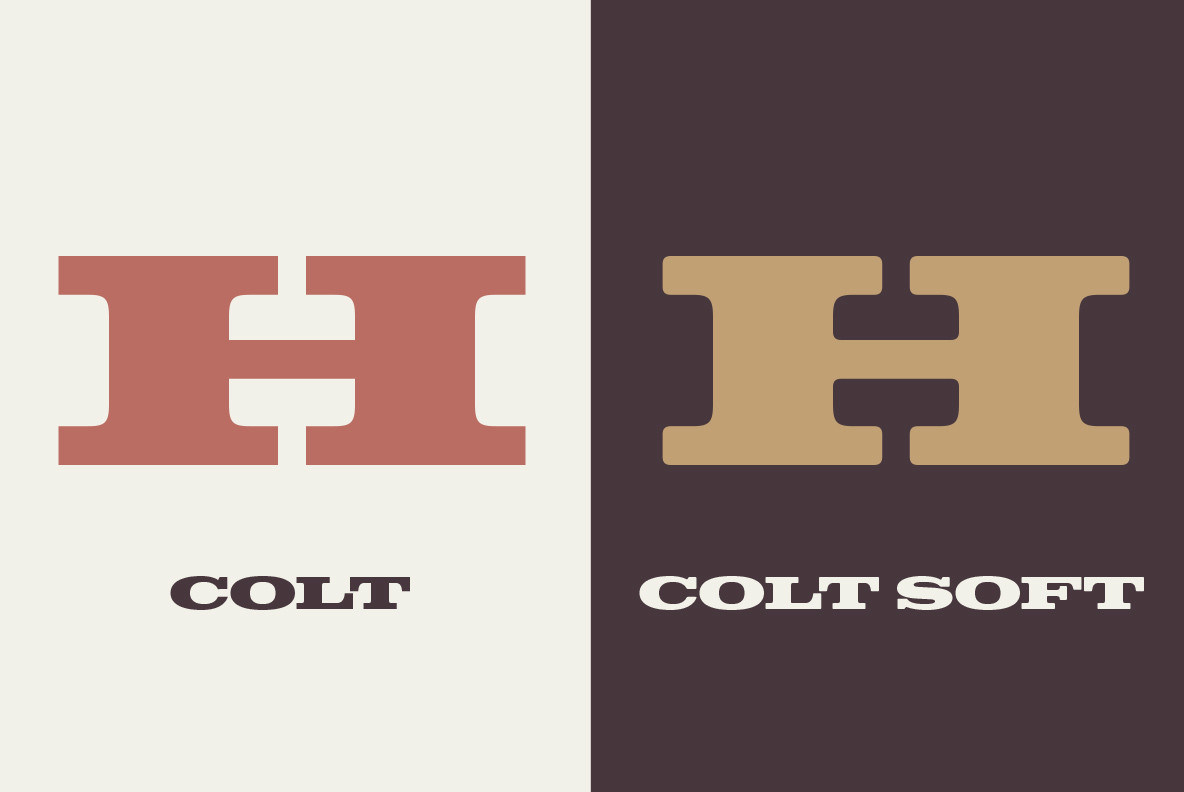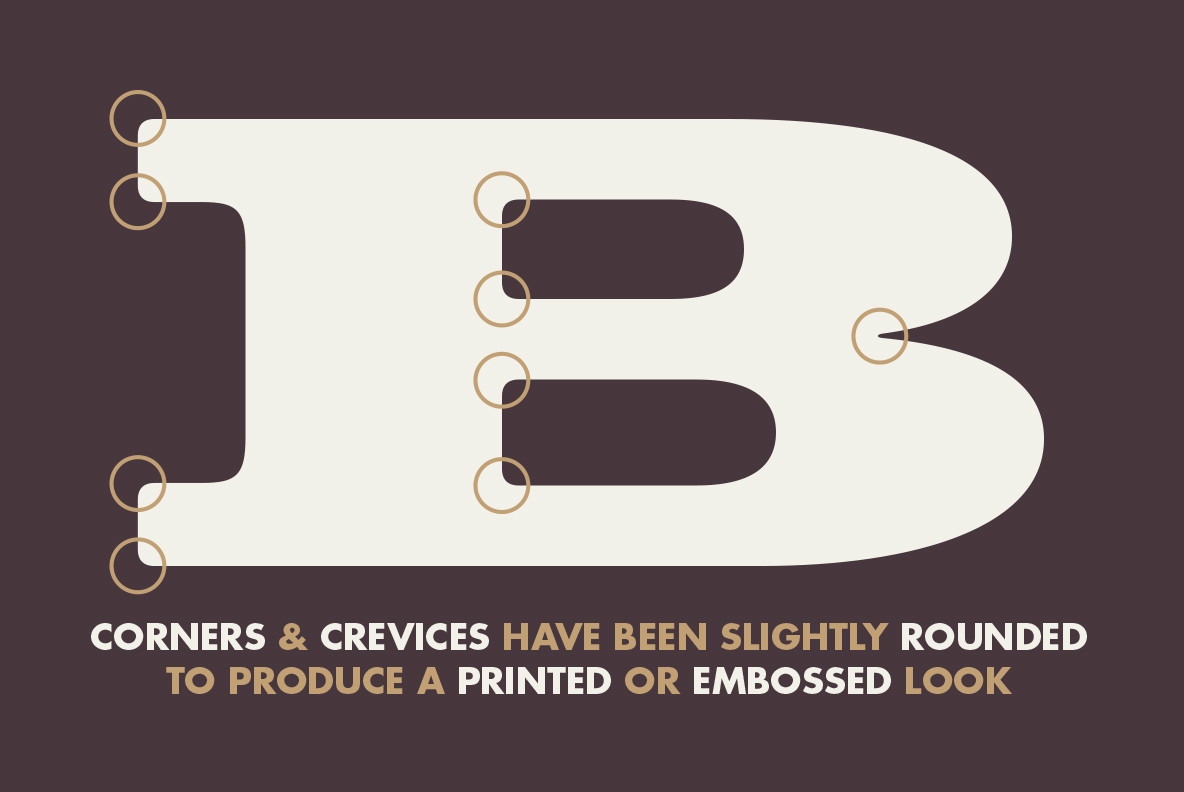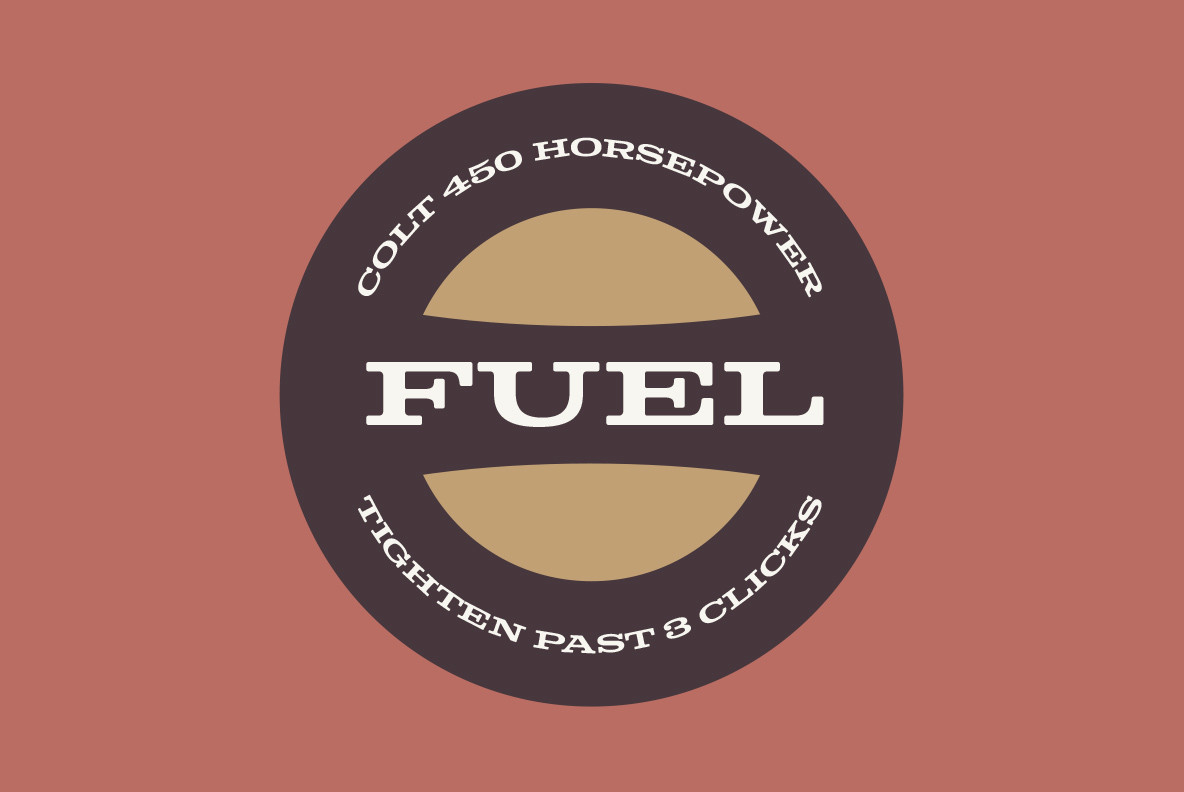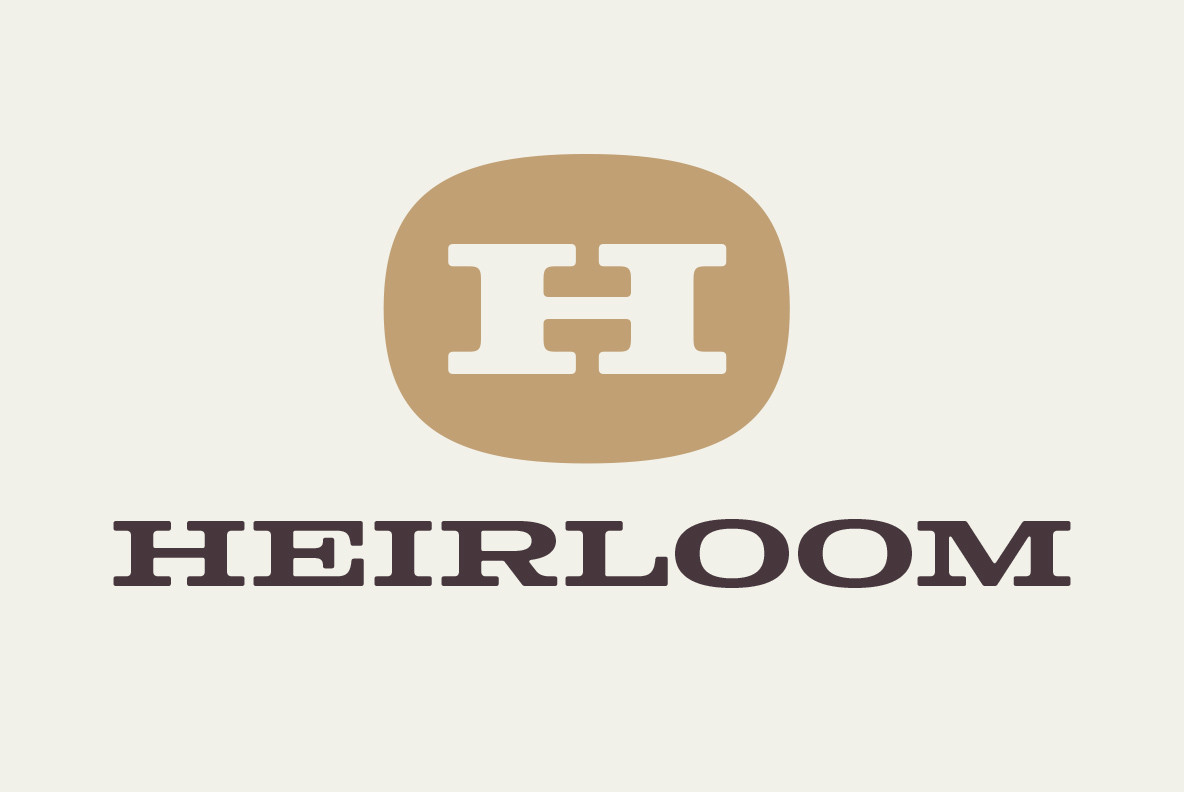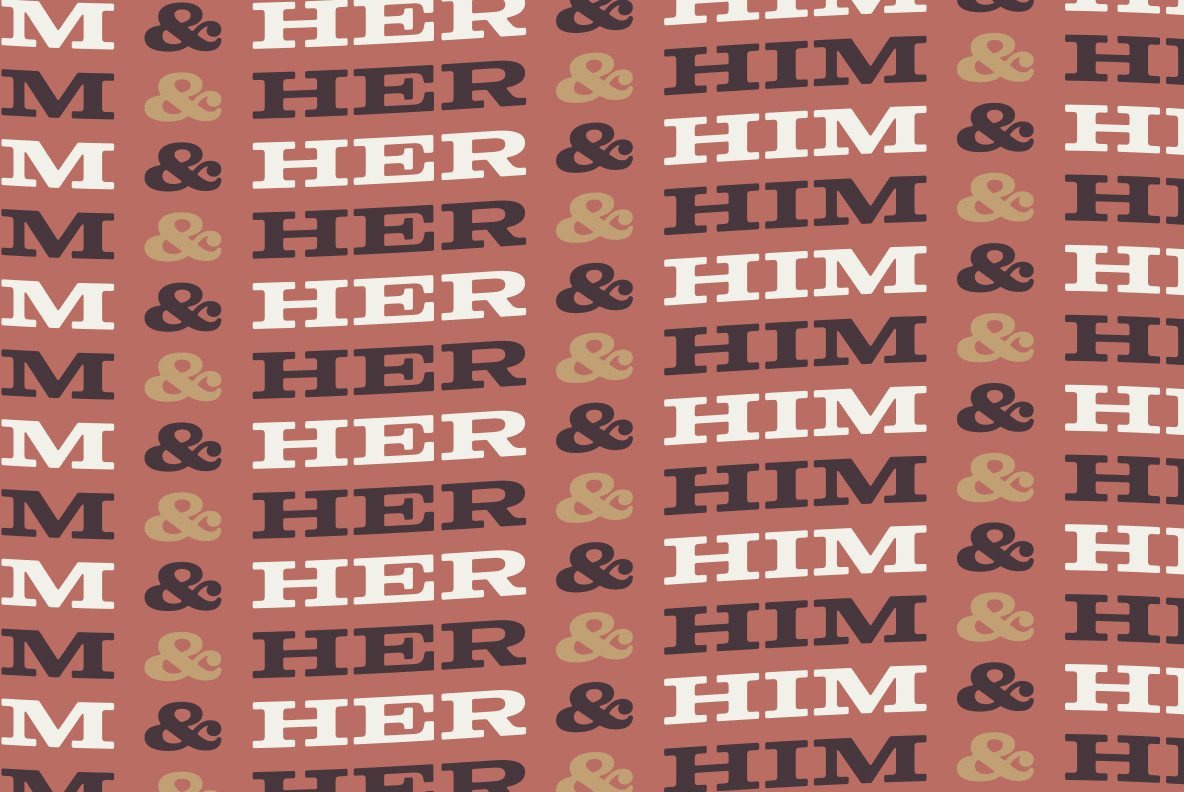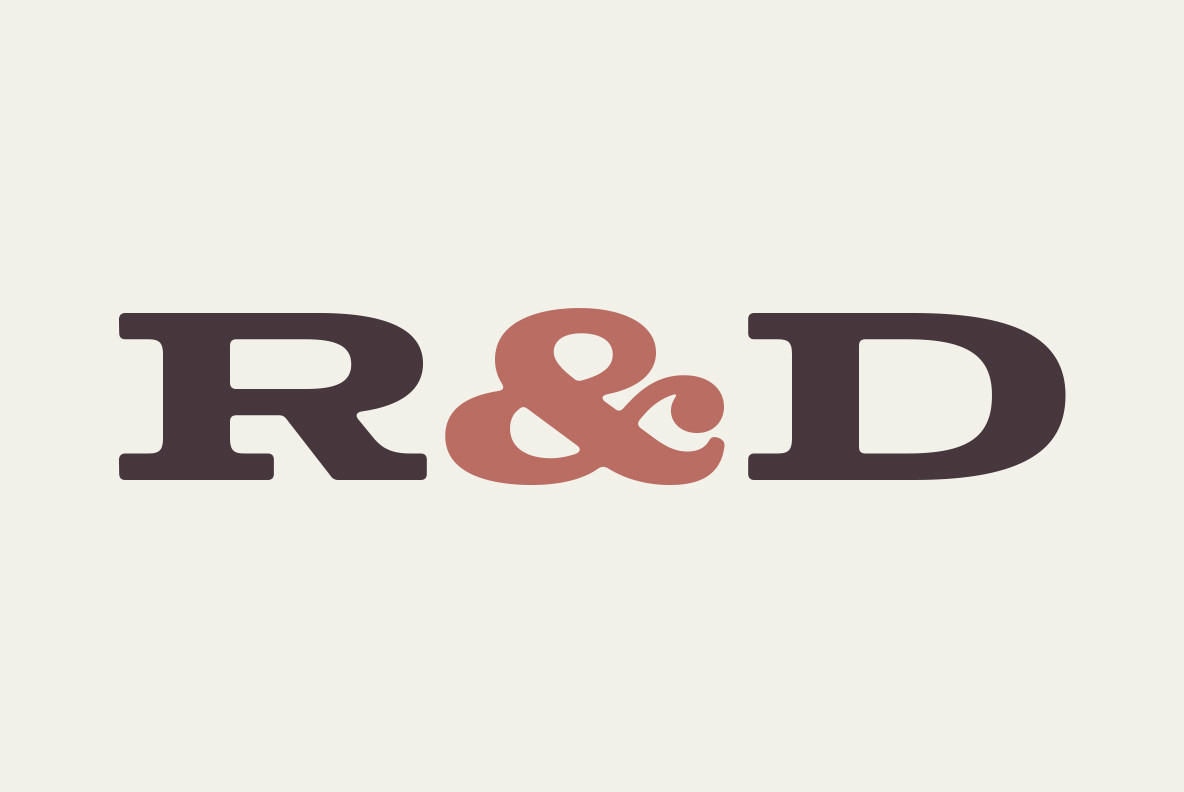
Colt Soft Font
Expanding on the idea of Colt, Colt Soft takes the family closer towards the realm of its original inspiration—type on vehicles from the 60s. During the decade, hefty letters were often embossed into the back of truck tailgates. Because of this technique, corners on the characters were never perfectly sharp, giving a slightly rounded appearance.
Colt Soft takes this idea and applies it to the original Colt typeface giving it an overall softened appearance.